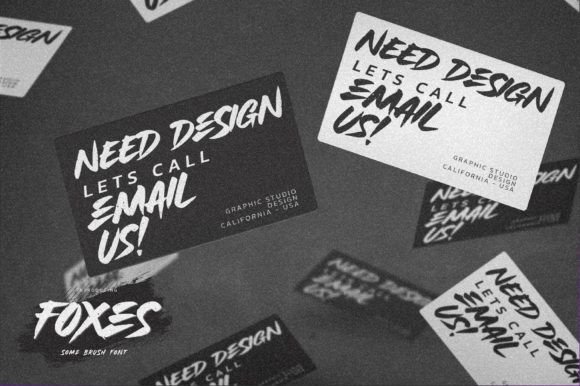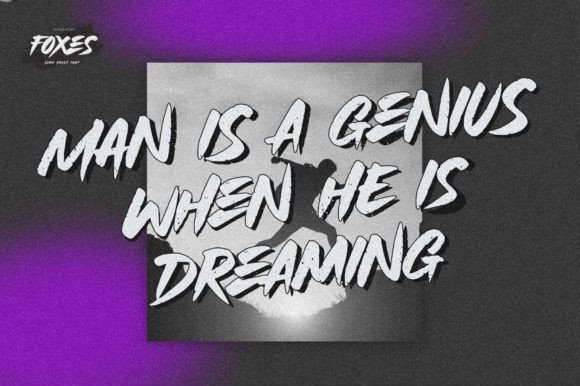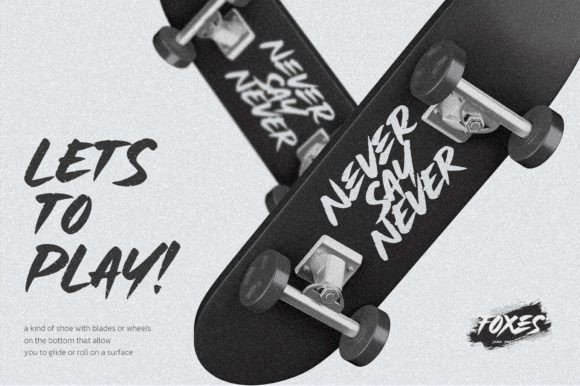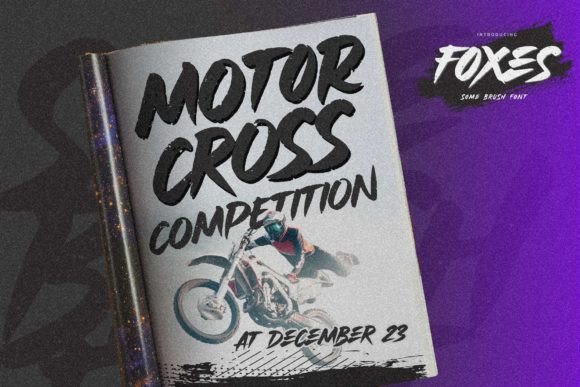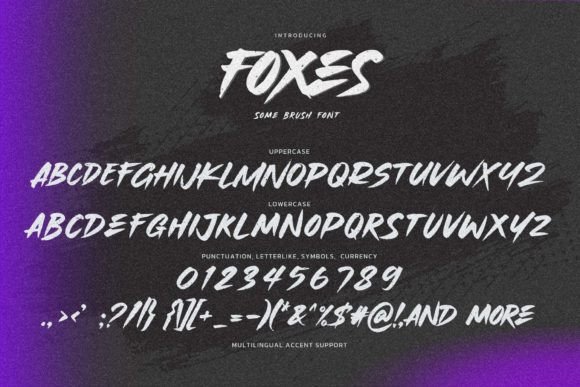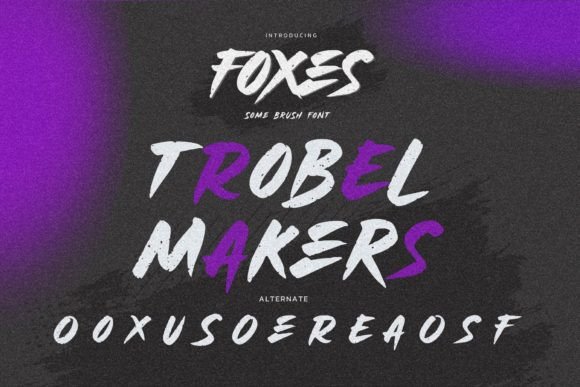
Introducing Foxes Font: A Brush Display Font with Dramatic Movement
Are you looking for a font that can add a touch of modernity and creativity to your next project? Look no further than Foxes Font, a brush display font with a naturally textured style and dramatic movement. This font is perfect for designers and crafters who want to create stunning visual content that stands out from the crowd.
What is Foxes Font?
Foxes Font is a brush display font that features a unique, hand-brushed style with a textured look and feel. The font has a dynamic, energetic vibe that makes it perfect for projects that require a bold and modern typography. With its natural texture and dramatic movement, Foxes Font can add a touch of sophistication and elegance to any design.
Key Features of Foxes Font
• Naturally Textured Style: Foxes Font features a unique, hand-brushed texture that gives it a natural and organic look.
• Dramatic Movement: The font has a dynamic, energetic vibe that makes it perfect for projects that require a bold and modern typography.
• Modern Typography: Foxes Font is designed to meet the needs of modern designers who require a font that can keep up with the latest trends.
• Multi-Purpose: This font can be used for a wide range of projects, including logos, printed quotes, invitations, cards, product packaging, headers, stationery, and more.
Use Cases for Foxes Font
Foxes Font is a versatile font that can be used for a wide range of projects. Here are some use cases where this font can shine:
• Logos: Create a stunning logo for your business or brand with Foxes Font.
• Printed Quotes: Add a touch of elegance to your printed quotes with this beautiful font.
• Invitations: Create beautiful invitations for special events, such as weddings, parties, and conferences.
• Cards: Design stunning greeting cards for any occasion.
• Product Packaging: Add a touch of modernity to your product packaging with Foxes Font.
• Headers: Use this font to create stunning headers for your website, blog, or social media channels.
• Stationery: Create beautiful stationery, such as letterheads, notebooks, and journals.
Why Choose Foxes Font?
There are many reasons why you should choose Foxes Font for your next project. Here are a few:
• Unique Style: Foxes Font has a unique, hand-brushed style that sets it apart from other fonts.
• High-Quality: This font is designed to deliver high-quality results, even at large sizes.
• Multi-Purpose: This font can be used for a wide range of projects, making it a great value for designers and crafters.
Tips for Using Foxes Font
Here are a few tips for using Foxes Font:
• Experiment with Colors: Try out different colors to see what works best with Foxes Font.
• Play with Sizes: Experiment with different font sizes to create visual interest.
• Mix and Match: Try pairing Foxes Font with other fonts to create a unique look.
Foxes Font is a stunning brush display font with a naturally textured style and dramatic movement. With its unique style, high-quality design, and ease of use, this font is perfect for designers and crafters who want to create stunning visual content. Whether you’re looking to create a logo, printed quotes, invitations, or product packaging, Foxes Font is a great choice. So why wait? Download Foxes Font today and take your designs to the next level!